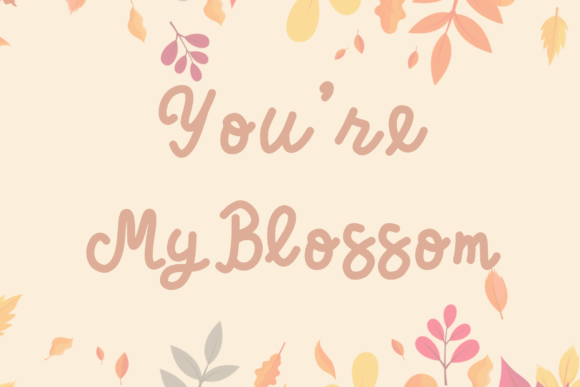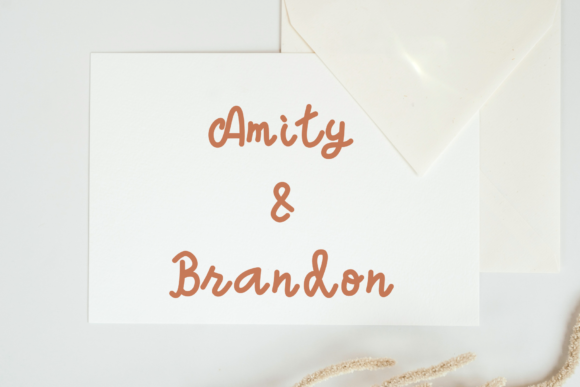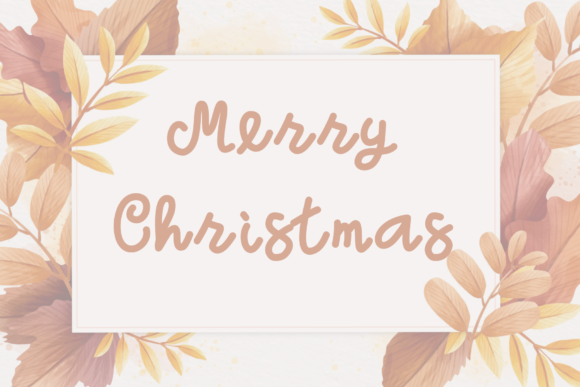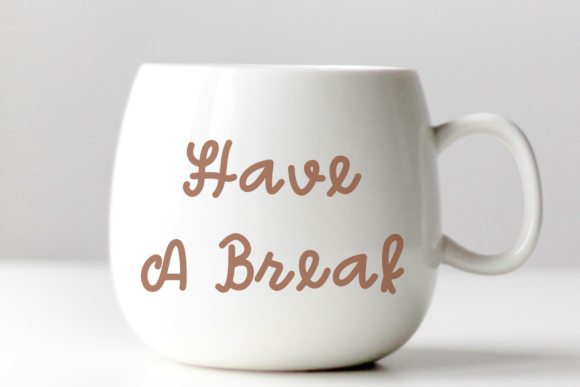
Christmas Style Font
About Christmas Style Font
Christmas Style is a sweet and delicate handwritten font. It is ideal for holiday-themed greeting cards and for any crafting project that requires a romantic touch.